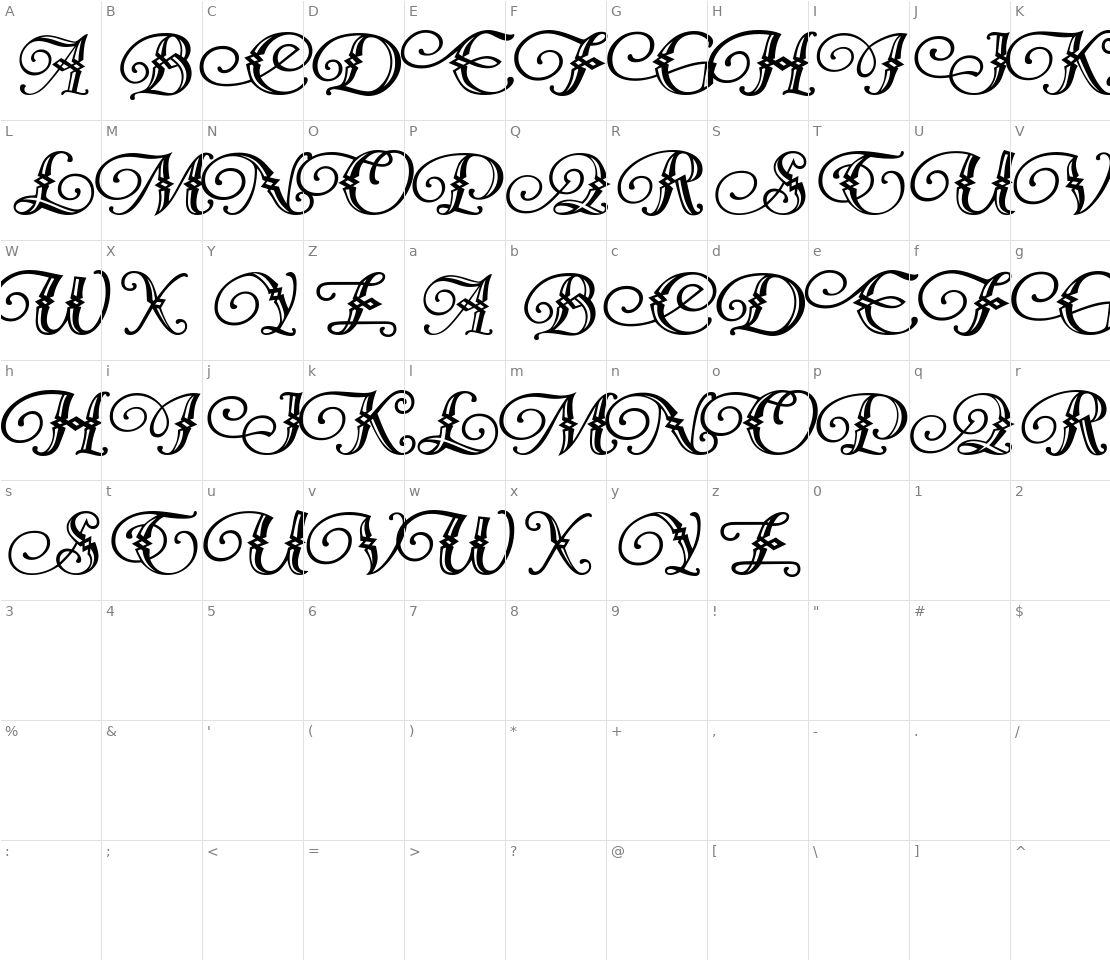
Diamond Dreams
Diamond Dreams is an ornamental display face from CybaPee with elaborate swash details and an engraved quality that recalls Victorian-era lettering and formal stationery. The letterforms are densely decorated and unmistakably fancy, built for wedding invitations, certificates, and elegant headlines where extravagance is the whole point. Keep it large so the intricate detail doesn't collapse into noise.